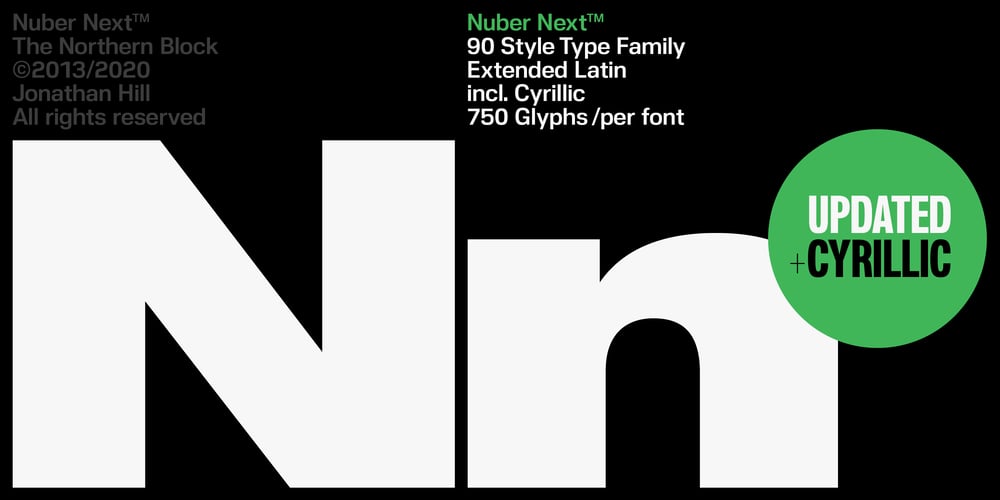
Nuber Next Font Family was designed by Jonathan Hill and published by The Northern Block. Nuber Next contains 90 styles and family package options. Nuber Next is a modern geometric sans influenced by the popular neo-grotesques of the 1950s including Helvetica and Univers. Carefully remastered from the original Nuber type family to improve letter shape, overall uniformity and introduce a flexible width system capable of handling a wider variety of typographic applications. Details include 750 characters per font, nine weights and five widths with matching italics. Opentype features include seven variations of numerals, fractions, case-sensitive forms, stylistic alternates, ligatures, extended monetary symbols and language support covering Cyrillic, Western, South and Central Europe.